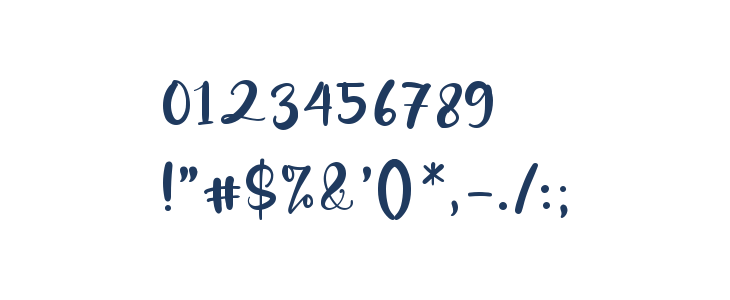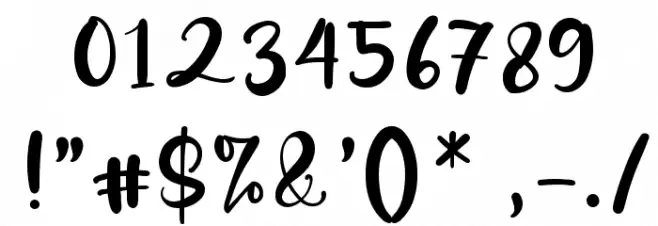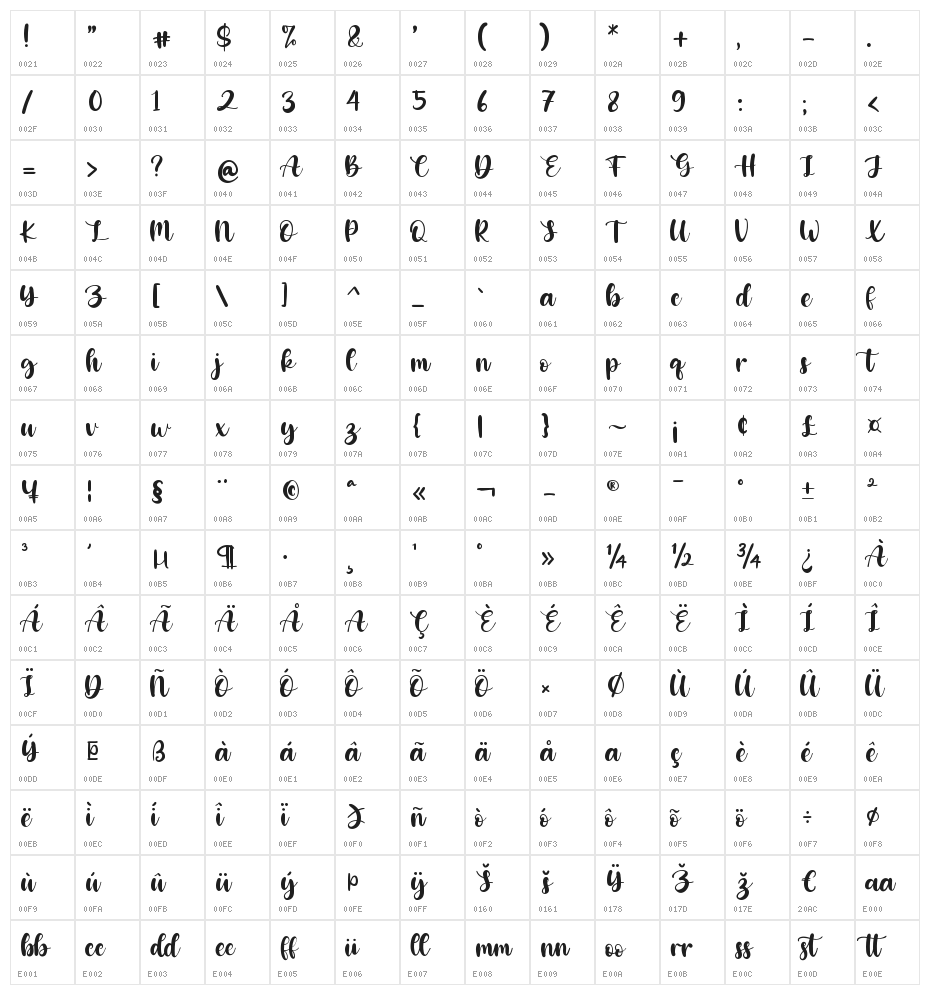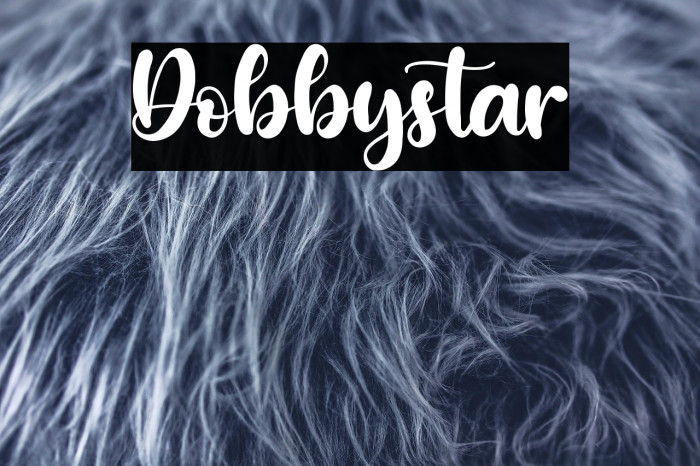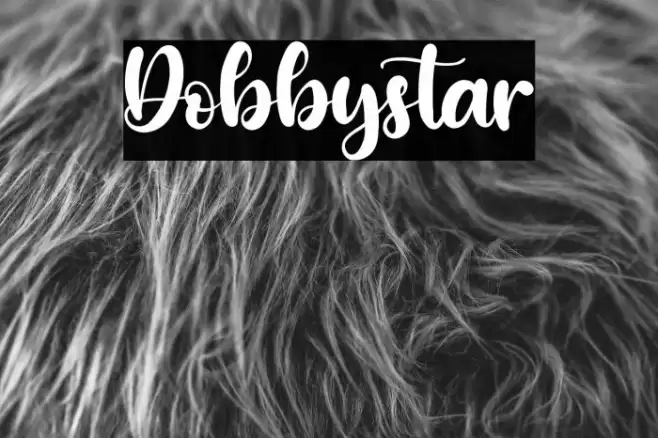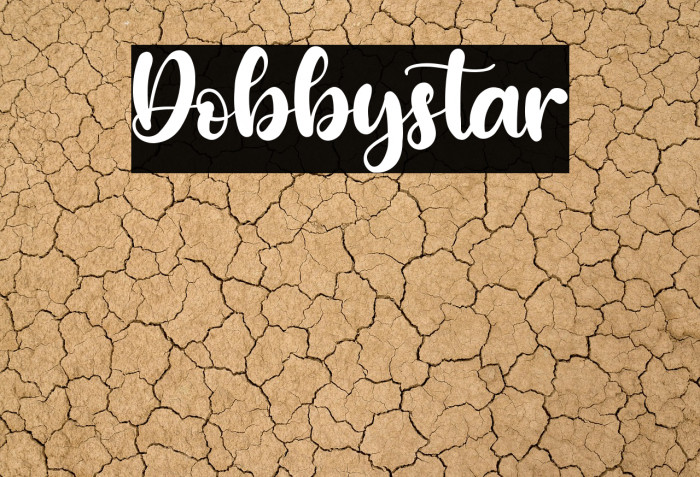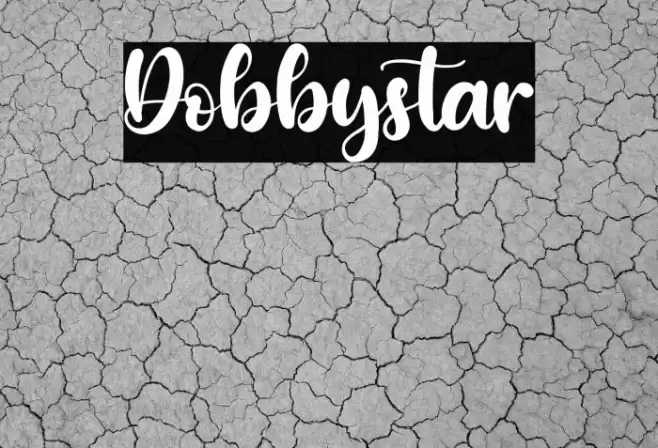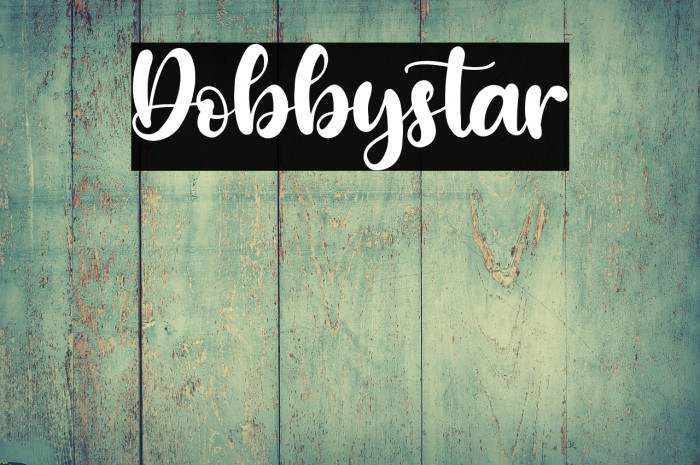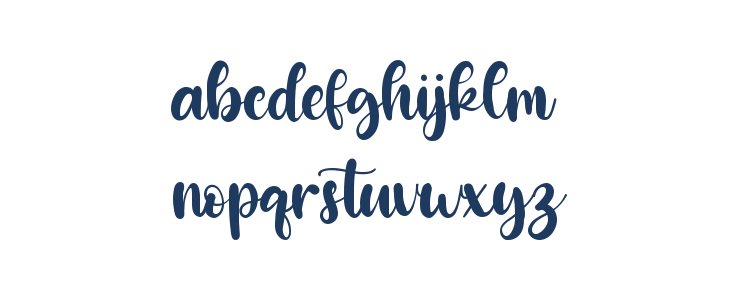
Dobbystar Font
Dobbystar Description
This font features a playful and energetic script style, characterized by its flowing, cursive letterforms. The strokes are bold and expressive, with a consistent thickness that adds to its lively appearance. The uppercase letters are elegantly looped, while the lowercase letters maintain a charming, handwritten feel. The numerals are rounded and maintain the same whimsical style, making them easily legible. Special characters are creatively integrated, adding to the font's versatility. This font is ideal for projects that require a personal touch, such as invitations, greeting cards, or branding materials.